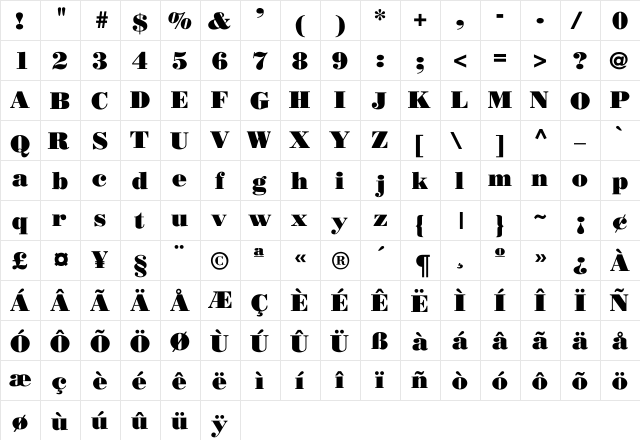
Bodoni-Normal Regular
Design Context for Bodoni-Normal Typeface
Bodoni-Normal offers clean, dependable letterforms without strong stylistic allegiance, making it a practical choice for designers who need flexibility.
Pro Tip: Use Bodoni-Normal in both headline and body roles to test its range before committing to a single application.